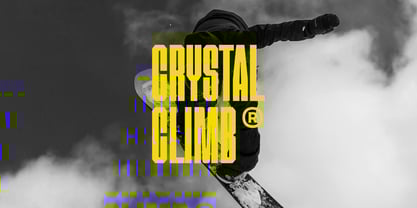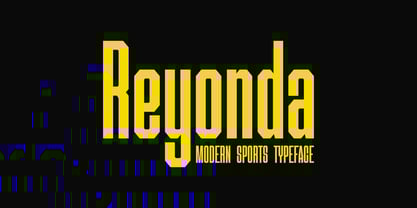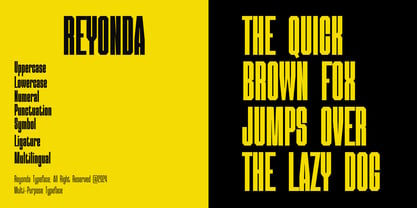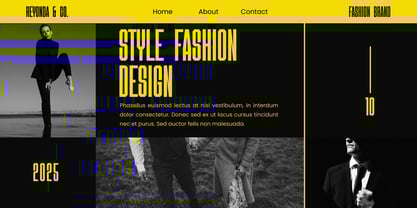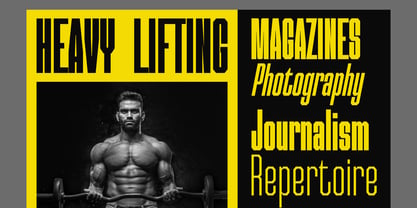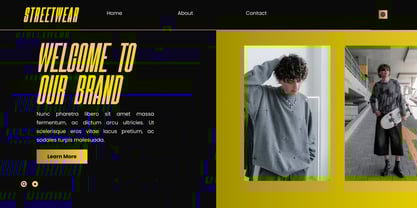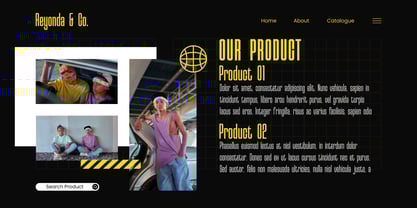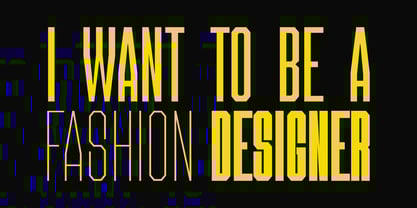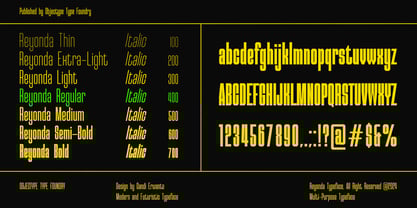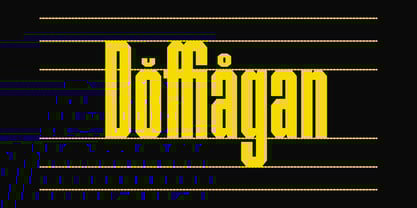
Reyonda Variable
by Objectype
The Reyonda Variable Font Family was designed by Candi Erwanto and published by Objectype. Reyonda Variable contains 2 styles and family package options. More about this family
Font Reyonda Product Description
Reyonda is a versatile typeface designed to deliver maximum visual impact, even in limited design spaces. Balancing modern aesthetics and readability, Reyonda is the ideal solution for designers seeking space efficiency without compromising visual appeal.
Key Features
1. Balance of Design & Readability:
• A large x-height ensures optimal readability, even in tightly spaced typography.
• Compact line spacing enhances visual cohesion for a cleaner appearance.
2. Variable Font Flexibility:
• Available in weights ranging from Thin to Bold, with seamless transitions to oblique styles.
• Offers versatility for various styles and design needs.
3. Modern Details:
• Combines modern aesthetic elements with exceptional readability, creating a unique and professional look.
Ideal Applications
Reyonda is perfect for:
• Headlines: Capturing attention with bold designs.
• Logos: Creating strong brand identities.
• Packaging & Book Covers: Optimizing design space without losing appeal.
• Editorial Design & Branding: Providing flexibility and clarity across diverse media.
Technical Specifications
• Weight Range: From Thin to Bold, including oblique styles.
• Glyph Support: 330 glyphs for various languages, enabling multilingual designs.
Why Choose Reyonda?
• Optimized for compact design spaces such as posters, magazines, and packaging.
• Exceptional readability across all sizes and font weights.
• Suitable for a wide range of creative projects, from editorial design to branding.
Designers: Candi Erwanto
Foundry: Objectype